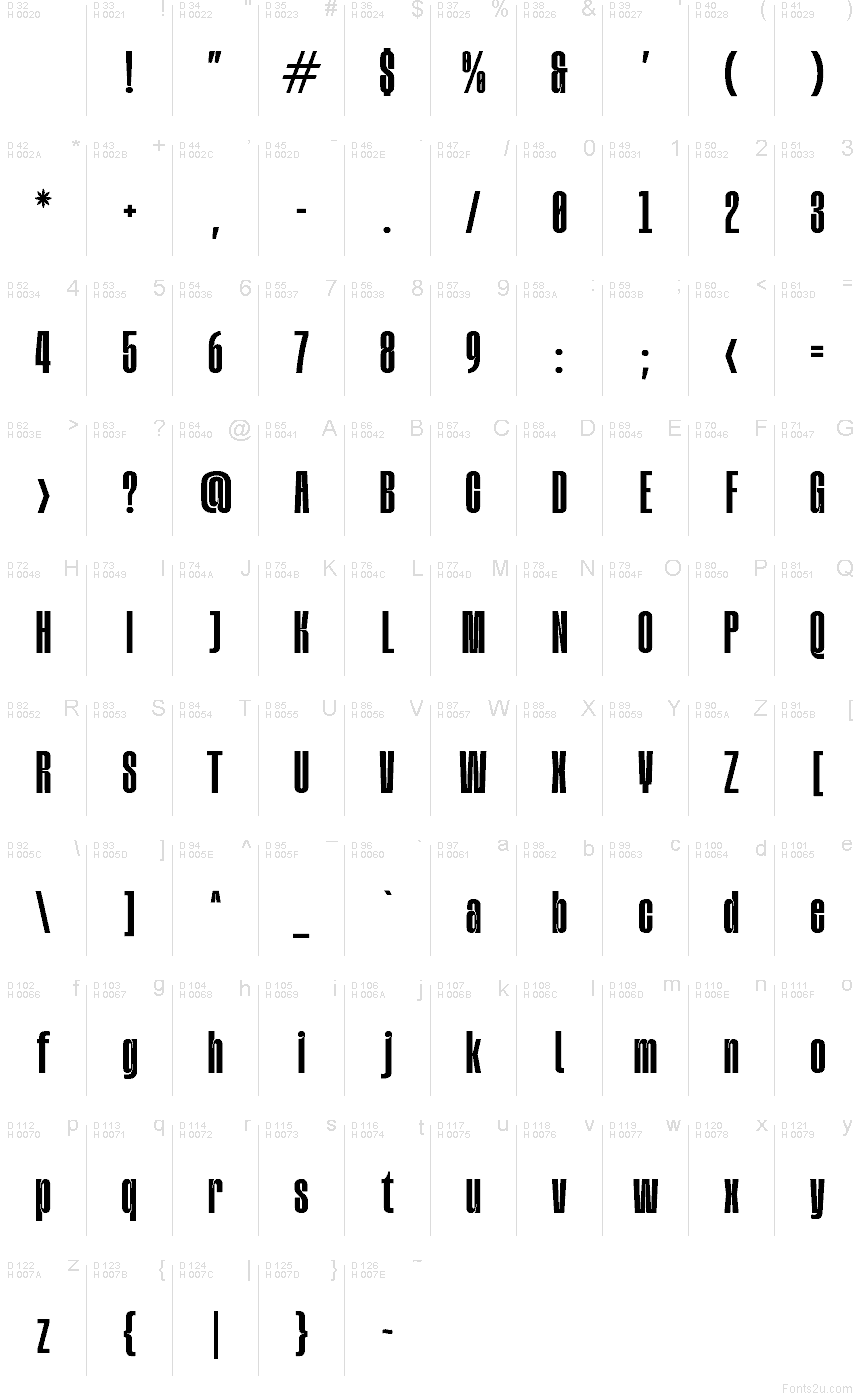
Radiale Demo
Radiale font by Limitype is a free decorative sans serif font that hits with a bold, compressed punch. Its tall, tightly stacked letters carve out dramatic inner curves, creating a striking play of black and white that feels both retro and futuristic. The vertical strokes look almost sculpted, giving titles a dense, inky presence that commands attention without feeling clumsy.
Using Radiale, your headlines instantly turn into graphic objects-great for posters, music or event flyers, edgy branding, packaging, bold website hero text, and statement social media graphics. This free font shines when set large and tight, letting those narrow silhouettes lock together. For supporting text, pair Radiale with a clean, open sans serif to keep everything readable while Radiale does the visual heavy lifting.
Radiale font by Limitype is a free decorative sans serif font that hits with a bold, compressed punch. Its tall, tightly stacked letters carve out dramatic inner curves, creating a striking play of black and white that feels both retro and futuristic. The vertical strokes look almost sculpted, giving titles a dense, inky presence that commands attention without feeling clumsy.
Using Radiale, your headlines instantly turn into graphic objects-great for posters, music or event flyers, edgy branding, packaging, bold website hero text, and statement social media graphics. This free font shines when set large and tight, letting those narrow silhouettes lock together. For supporting text, pair Radiale with a clean, open sans serif to keep everything readable while Radiale does the visual heavy lifting.
Muhammad Muammar & Ridwan Fadilah